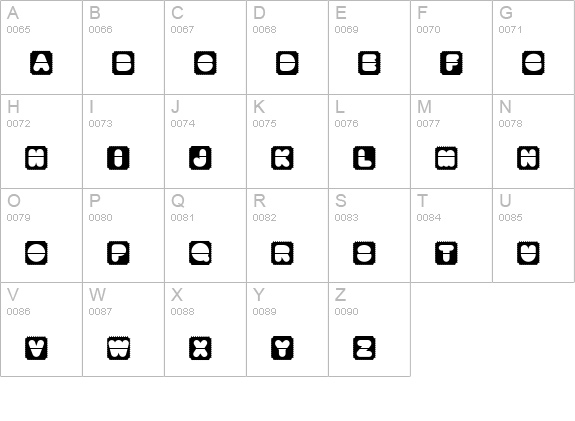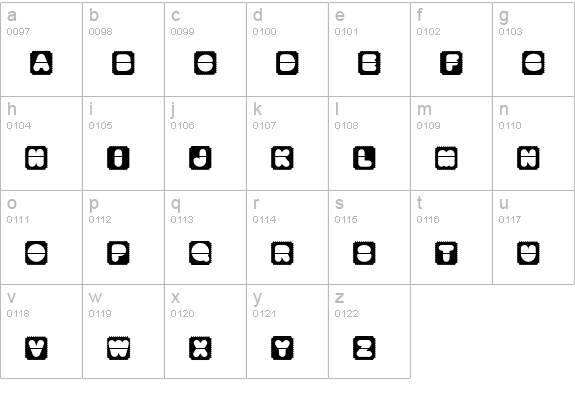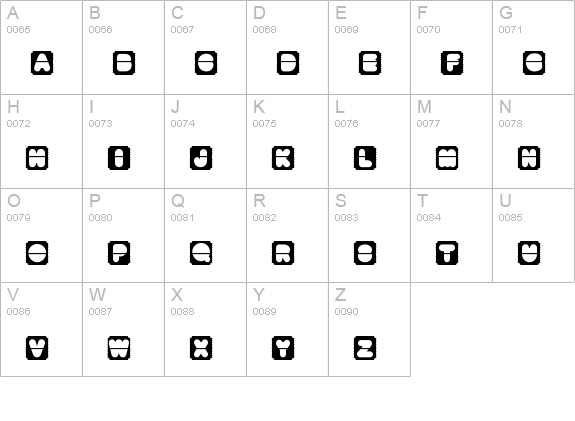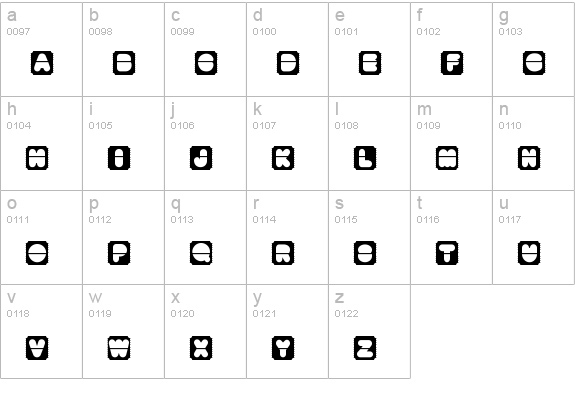
TicketMaster Black Font Details
TicketMaster Black is a maximum-weight, dramatic variant in the TicketMaster typeface family \xE2\x80\x94 well suited to maximum-impact headlines, posters, and packaging.
Introducing TicketMaster Black font, the epitome of boldness and elegance. With its sleek and refined design, this font is sure to capture attention and leave a lasting impression. Crafted with precision and attention to detail, TicketMaster Black font is perfect for creating impactful headlines, titles, and logos. But what makes TicketMaster Black font truly special is that it is freely available to download at FontsMarket.com. Yes, you read that right - this remarkable font can be yours without any cost. Imagine the possibilities of having such a high-quality font at your fingertips, ready to enhance your creative projects without breaking the bank. With its clean lines and commanding presence, TicketMaster Black font exudes professionalism and sophistication. Whether you're designing a poster, magazine layout, or website, this font will effortlessly elevate your work to new heights. Its versatility allows it to shine in both digital and print mediums, ensuring that your message is conveyed with utmost clarity and impact. The TicketMaster Black font is the result of meticulous craftsmanship and a passion for typography. Every curve, every stroke has been carefully considered to create a font that stands out from the crowd. Its generous letter spacing and bold weight make it highly legible, ensuring that your audience can easily absorb your message. So why wait? Head over to FontsMarket.com and freely download the TicketMaster Black font today. Unleash your creativity and make a statement with this exceptional font that effortlessly combines style and substance. Elevate your designs, captivate your audience, and leave a lasting impression with TicketMaster Black font.